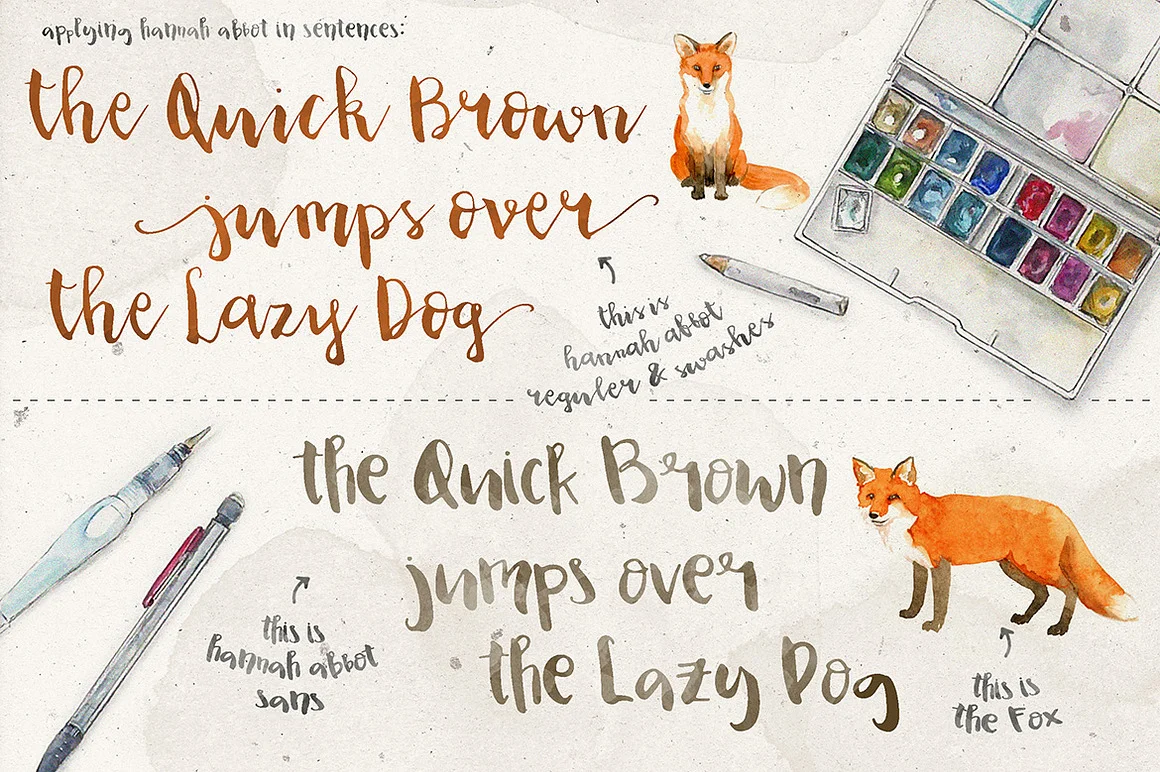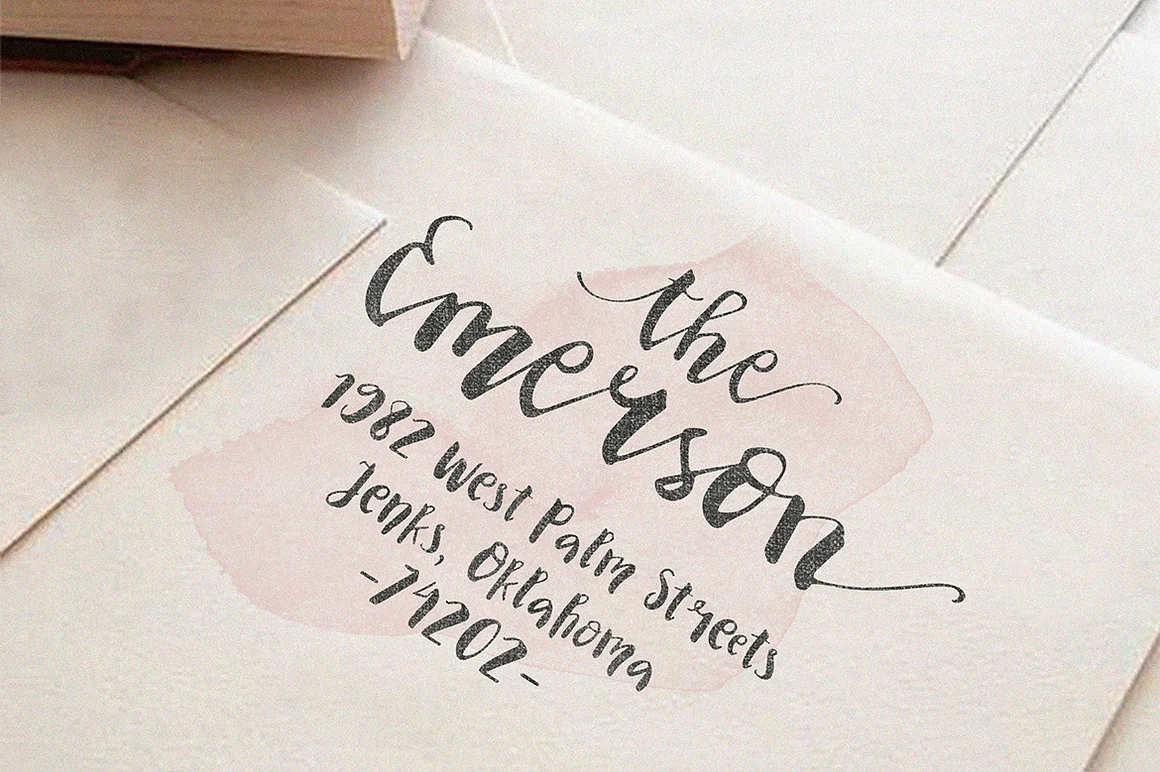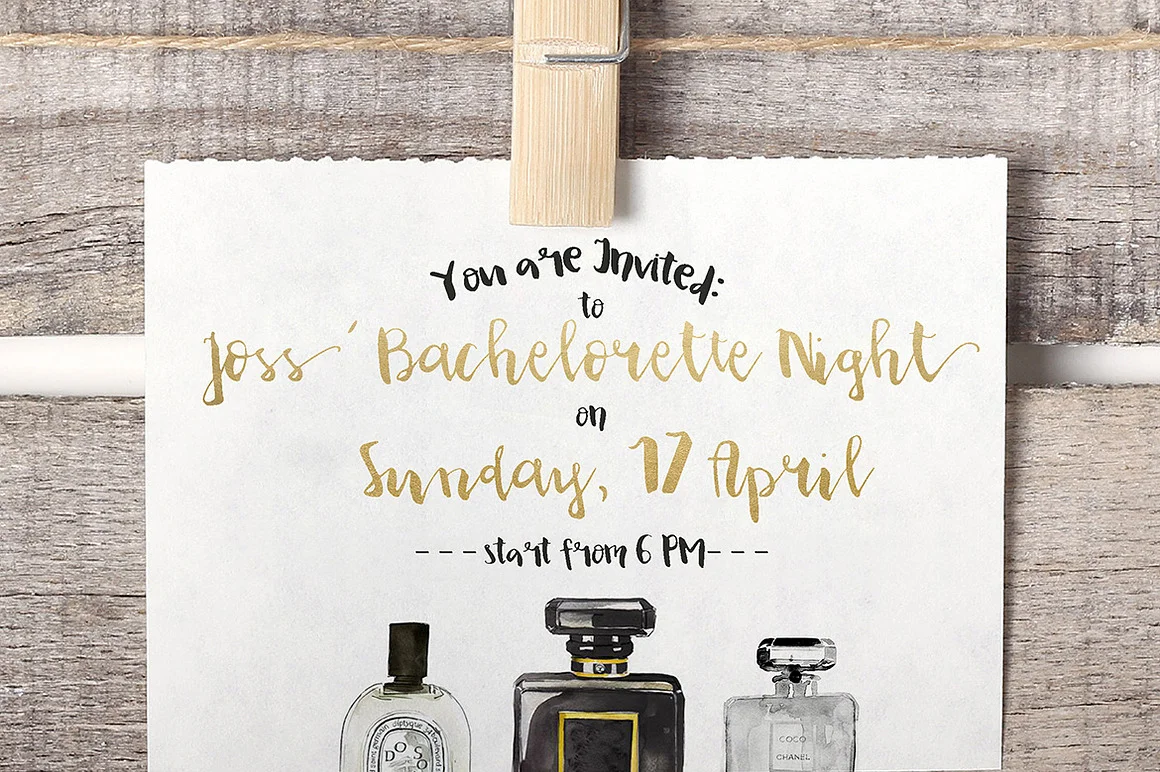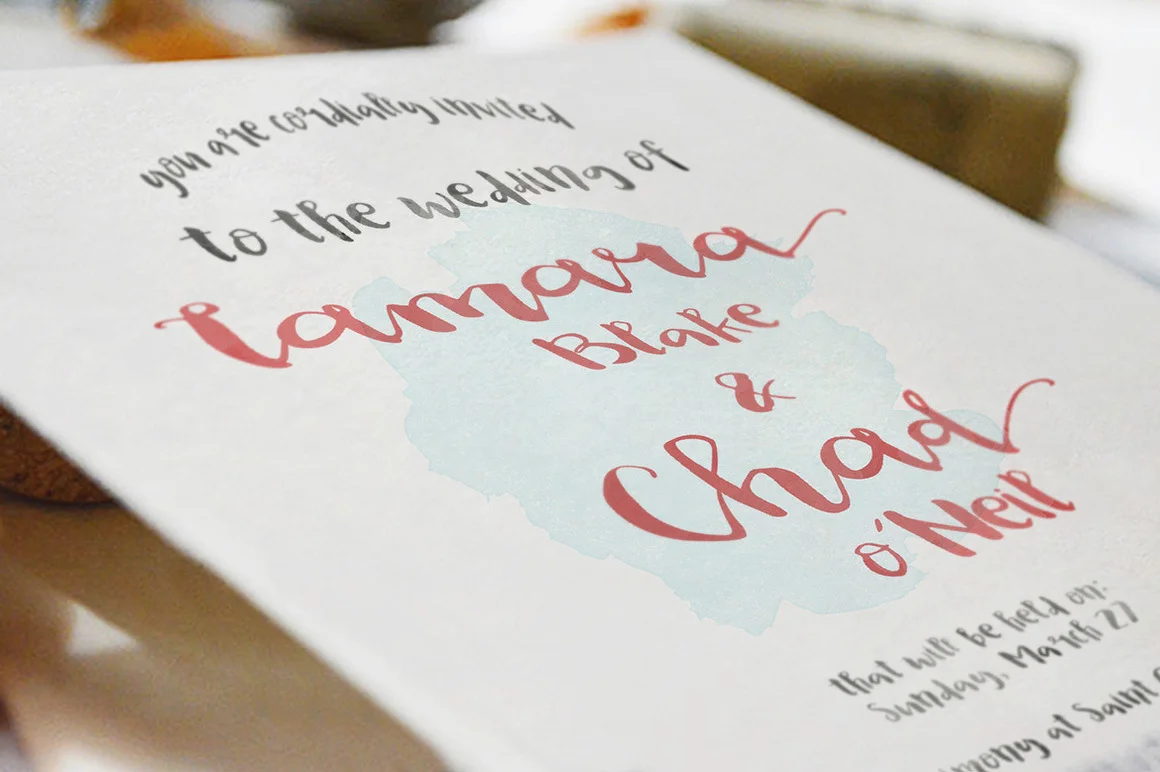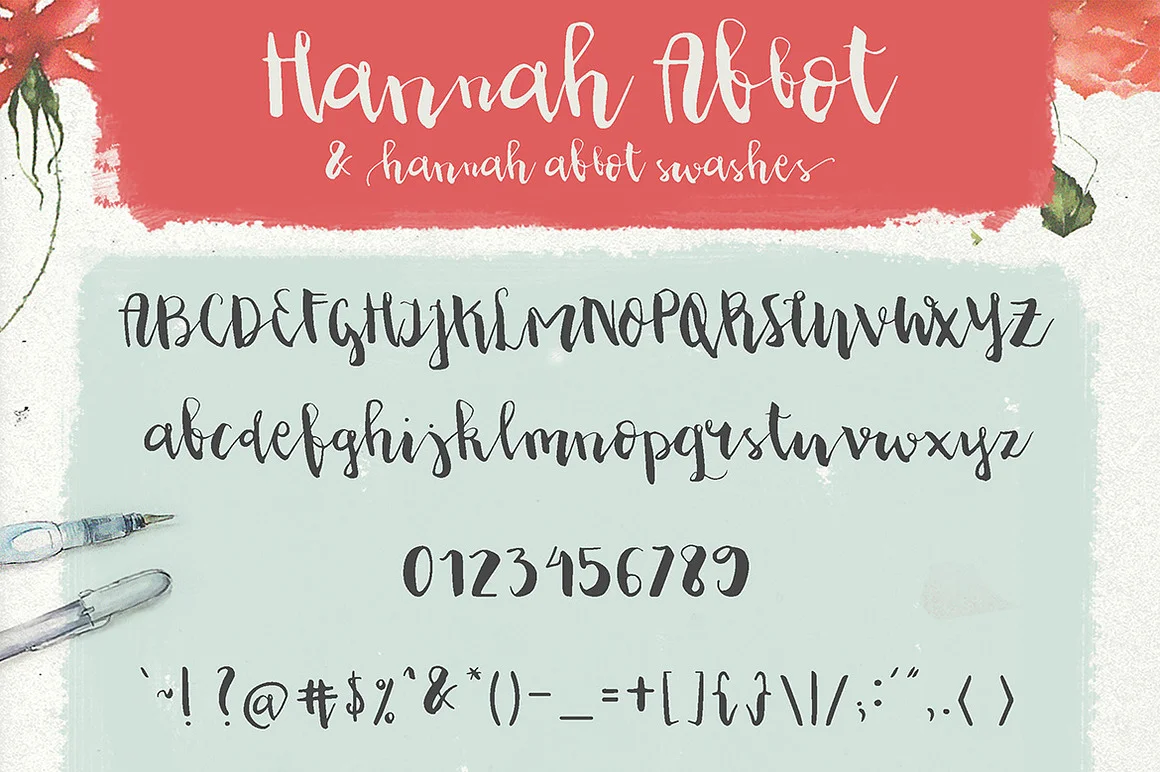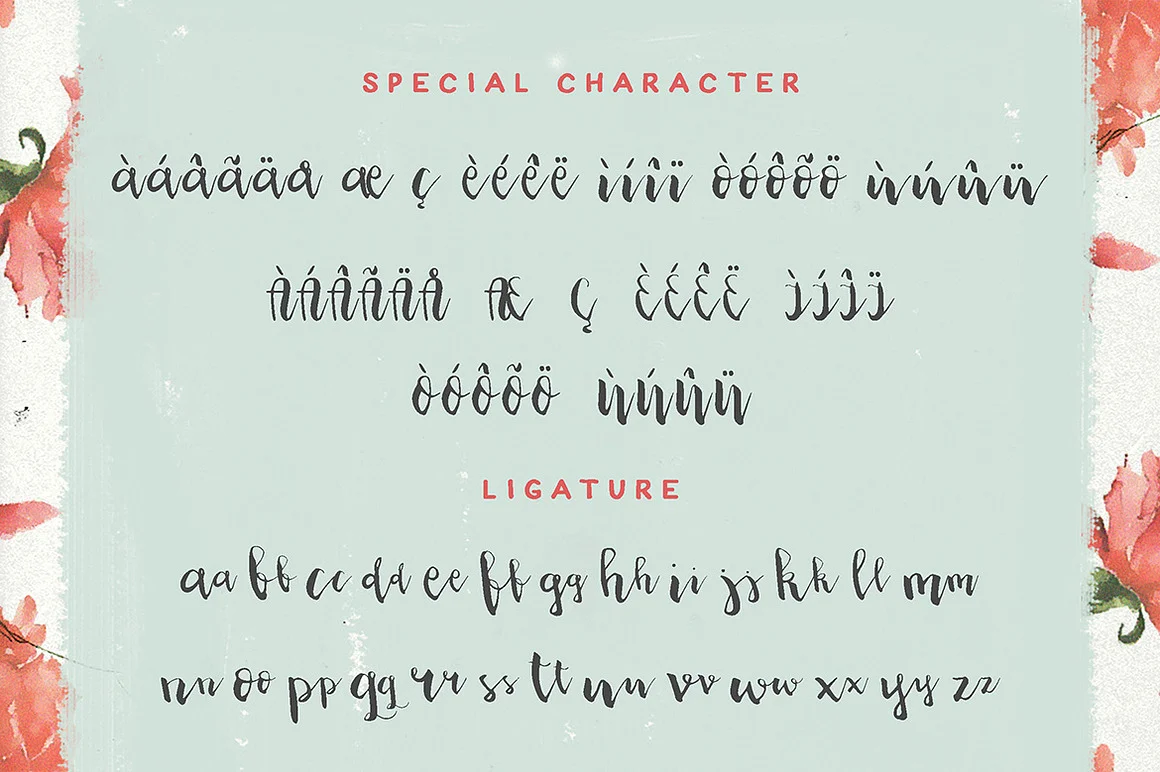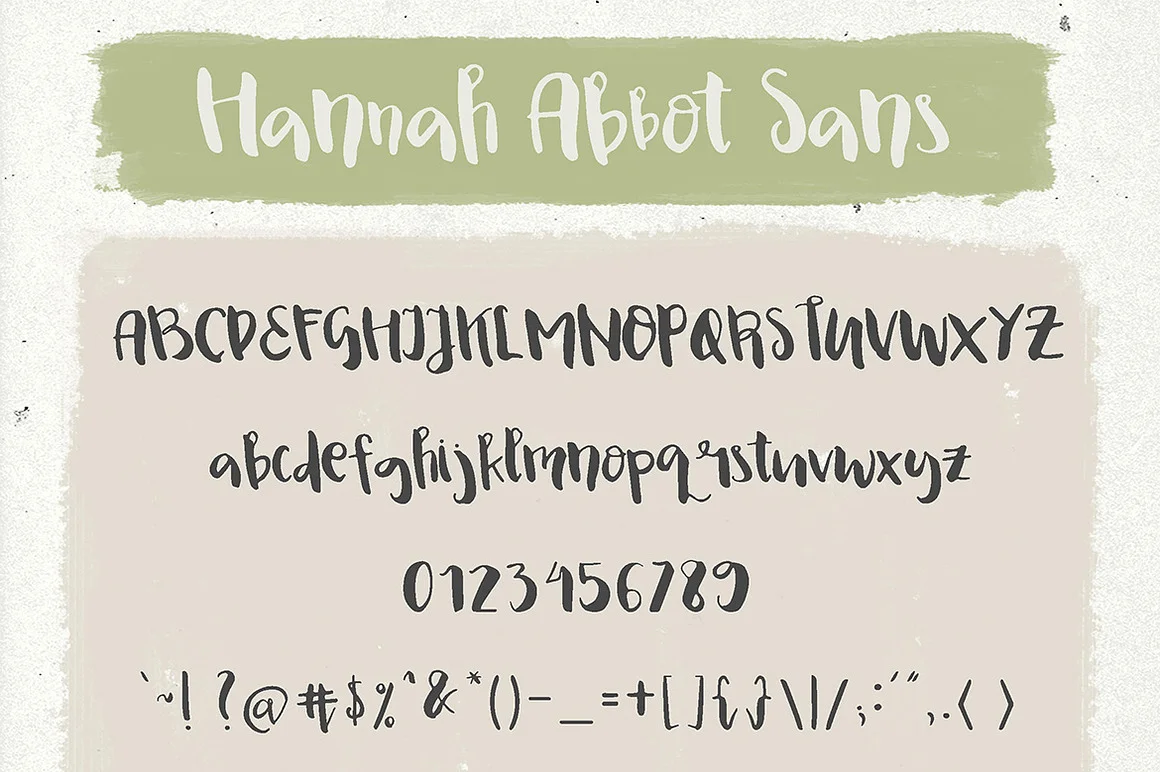
Hannah Abbot Script Font
Hannah Abbot Script Font is perfect for romantic wedding invitations, delicate branding projects, feminine fashion labels, elegant beauty packaging, sophisticated greeting cards, boutique logos, graceful social media graphics, refined stationery designs, upscale spa branding, and charming lifestyle marketing materials.
What makes Hannah Abbot Script Font so exciting is its delicate femininity that combines gentle elegance with contemporary sophistication, creating typography that speaks with refined grace and timeless charm. This enchanting script typeface embodies romantic elegance and gentle strength, delivering visual communication that resonates with audiences appreciating refined beauty and sophisticated femininity.
The Hannah Abbot Script Font family includes regular weight with extensive stylistic alternates, delicate flourishes, romantic ligatures, and graceful ornamental elements that provide designers with comprehensive tools for creating sophisticated and memorable feminine typography compositions that capture hearts and minds.
Embrace romantic sophistication with Hannah Abbot Script Font, a beautifully crafted script typeface that brings gentle elegance and feminine grace to contemporary design projects. This exceptional font embodies the perfect fusion of delicate charm and professional refinement, making it an essential tool for brands that celebrate feminine beauty and romantic sophistication.
The gracefully flowing letterforms of Hannah Abbot Script Font showcase delicate elegance with romantic character that creates instant emotional appeal and memorable feminine presence. Each character displays meticulous attention to maintaining the gentle sophistication that defines refined femininity while ensuring contemporary readability and professional versatility. The font's soft curves and elegant spacing contribute to its romantic appearance and sophisticated charm.
Beauty brands and feminine-focused designers consistently choose Hannah Abbot Script Font for projects requiring delicate sophistication and romantic appeal. The comprehensive character set includes uppercase and lowercase letters, numerals, extensive punctuation, international accents, and romantic decorative elements that provide complete support for elegant feminine branding applications and sophisticated romantic design compositions.
The timeless romance of Hannah Abbot Script Font ensures exceptional performance across both traditional print and modern digital platforms. Whether developing feminine brand identities, creating romantic wedding materials, or designing elegant beauty campaigns, this remarkable typeface delivers consistent grace that resonates with audiences seeking refined femininity and romantic sophistication.
Transform your most romantic projects with Hannah Abbot Script Font. This extraordinary script typeface brings delicate elegance and feminine sophistication to typography, making it the definitive choice for designers who create experiences that celebrate the beauty and grace of romantic femininity in contemporary design.